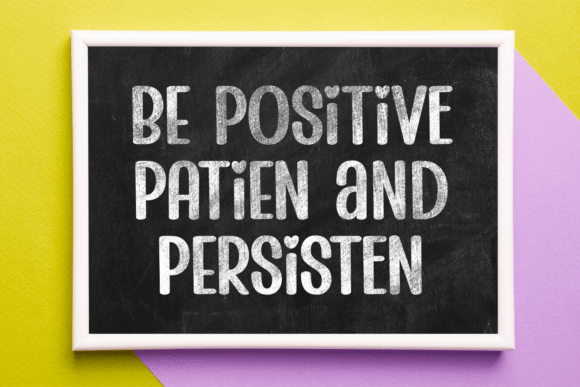
Hello Charm Font
Unveiling the delightful “Hello Charm Font”; a delightful fusion of amusement, sweetness, and charm. This soft-as-a-whisper font exudes an adorable allure that is sure to captivate your heart. Showcasing a fun and cute aesthetic, this font is quintessentially lovely, designed to add a sprinkle of enchantment and warmth to your creative projects. Experience the joy of typography with Hello Charm Font, it truly is typography at its cutest and most charming.